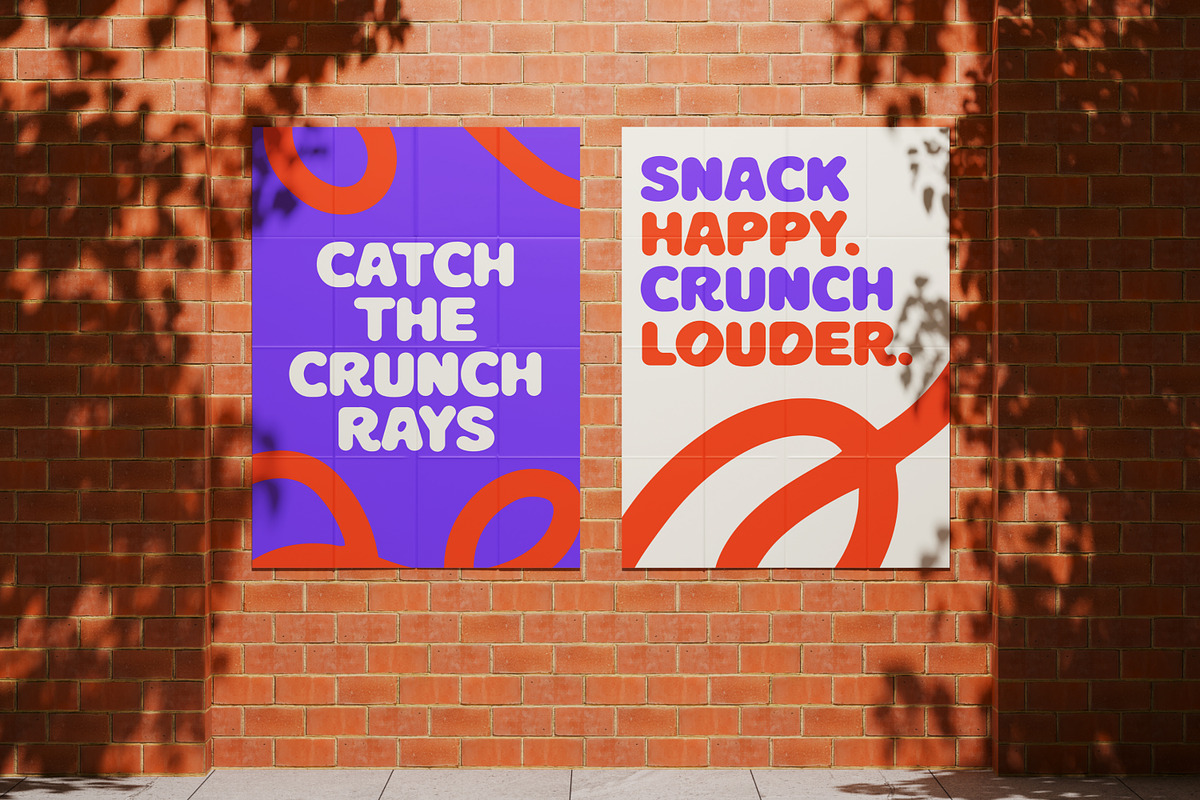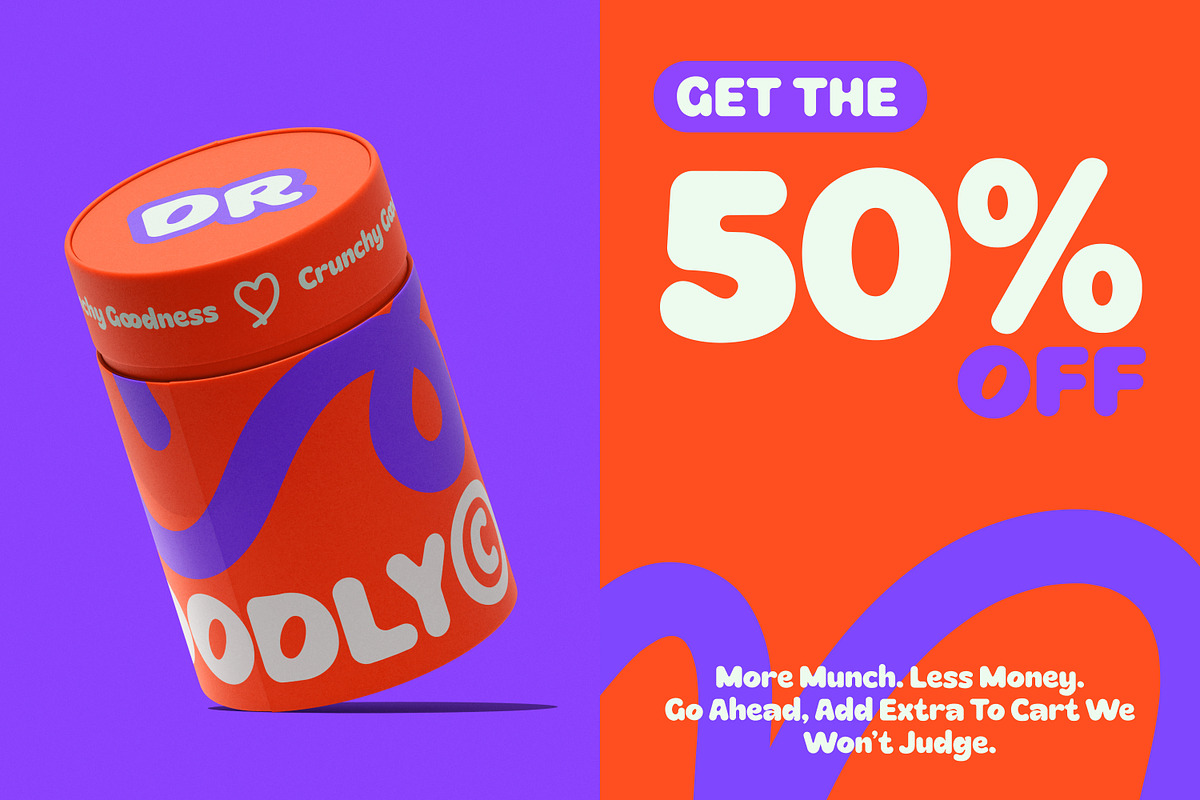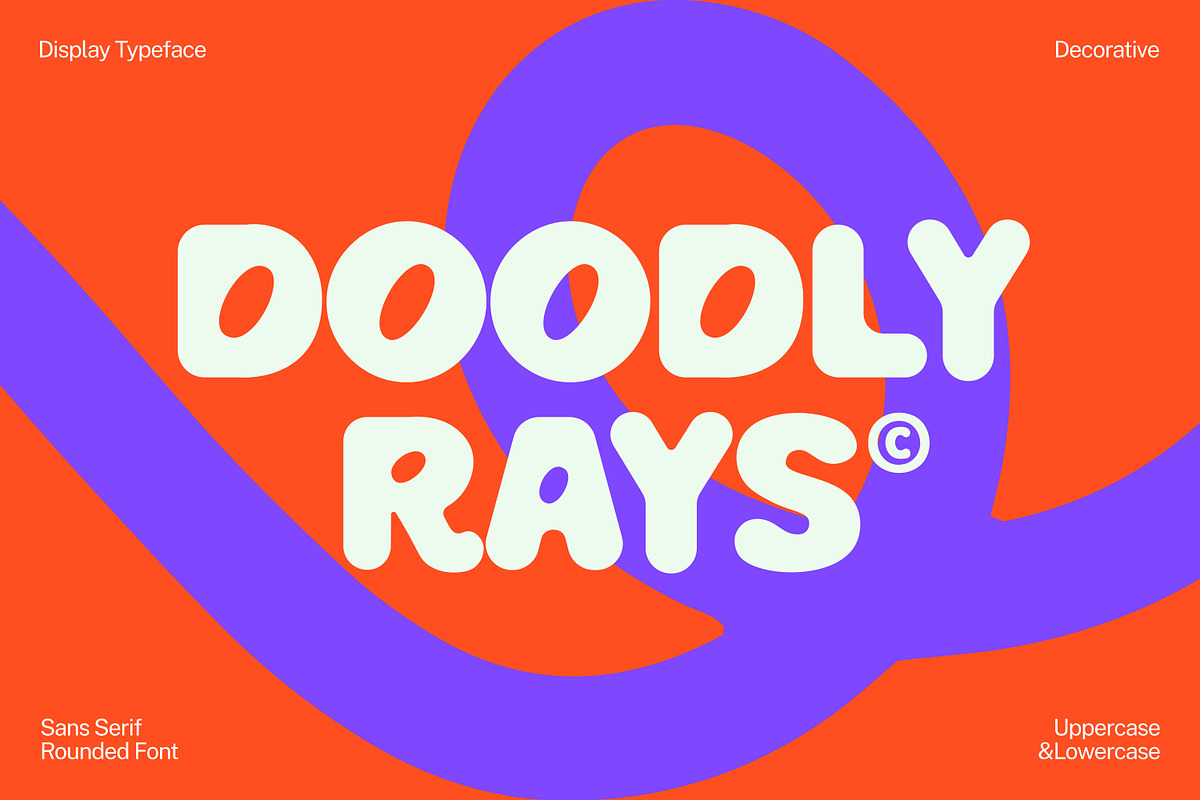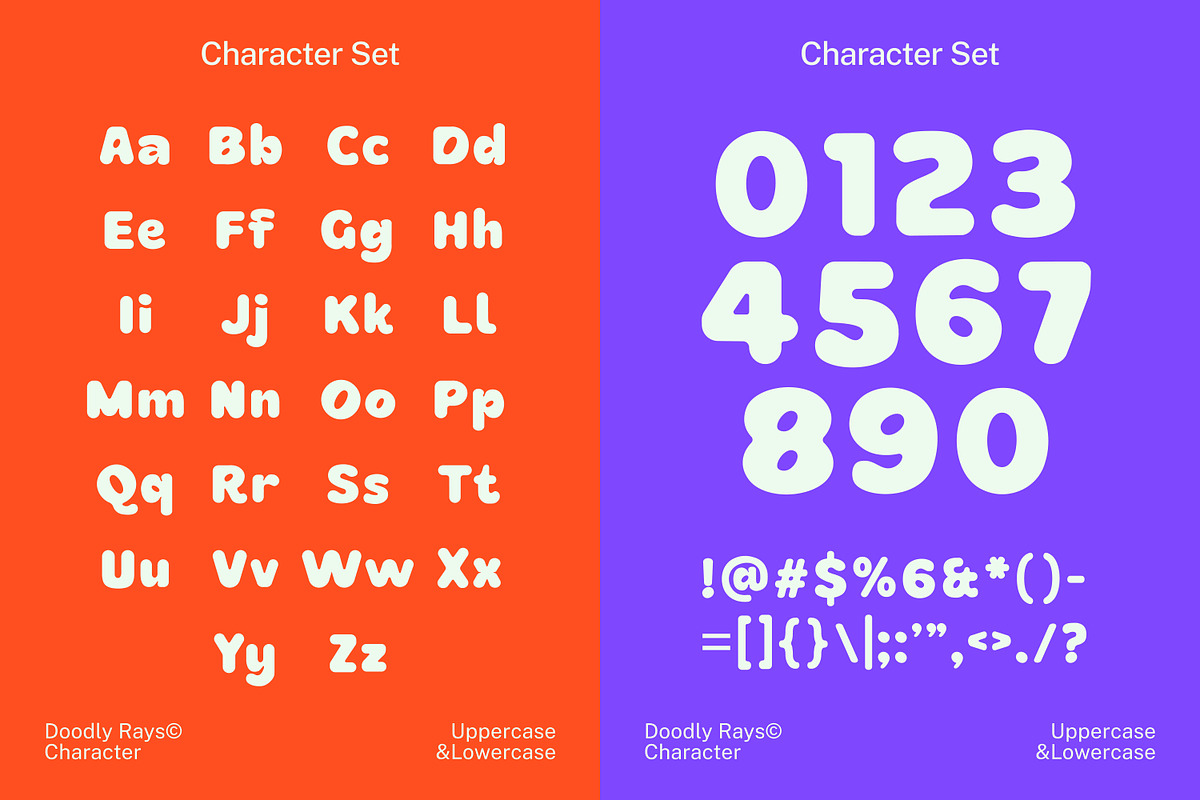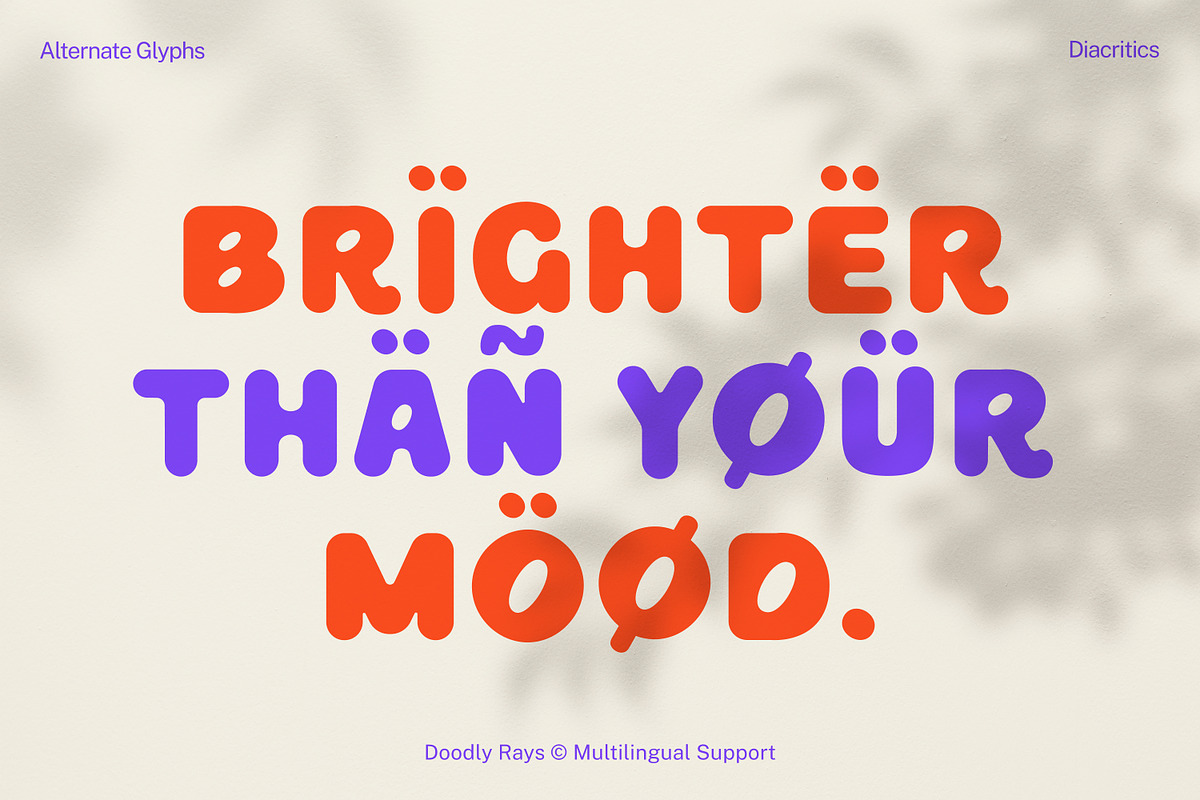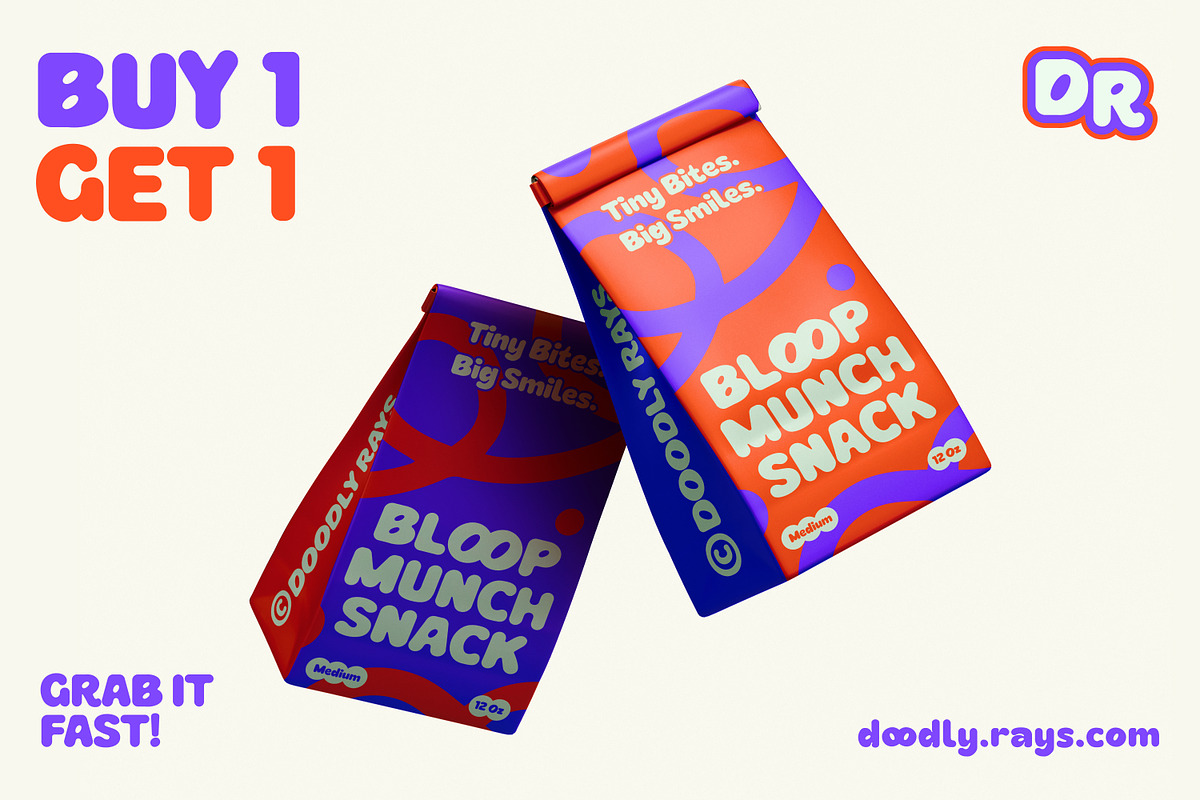
Doodly Rays
Doodly Rays is a fun display font featuring playful shapes and a cheerful doodle-inspired style. Perfect for kids’ projects, creative branding, posters, packaging, social media, and eye-catching headlines. Its lively and expressive personality adds a joyful and energetic touch, making your designs feel friendly, creative, and full of character.